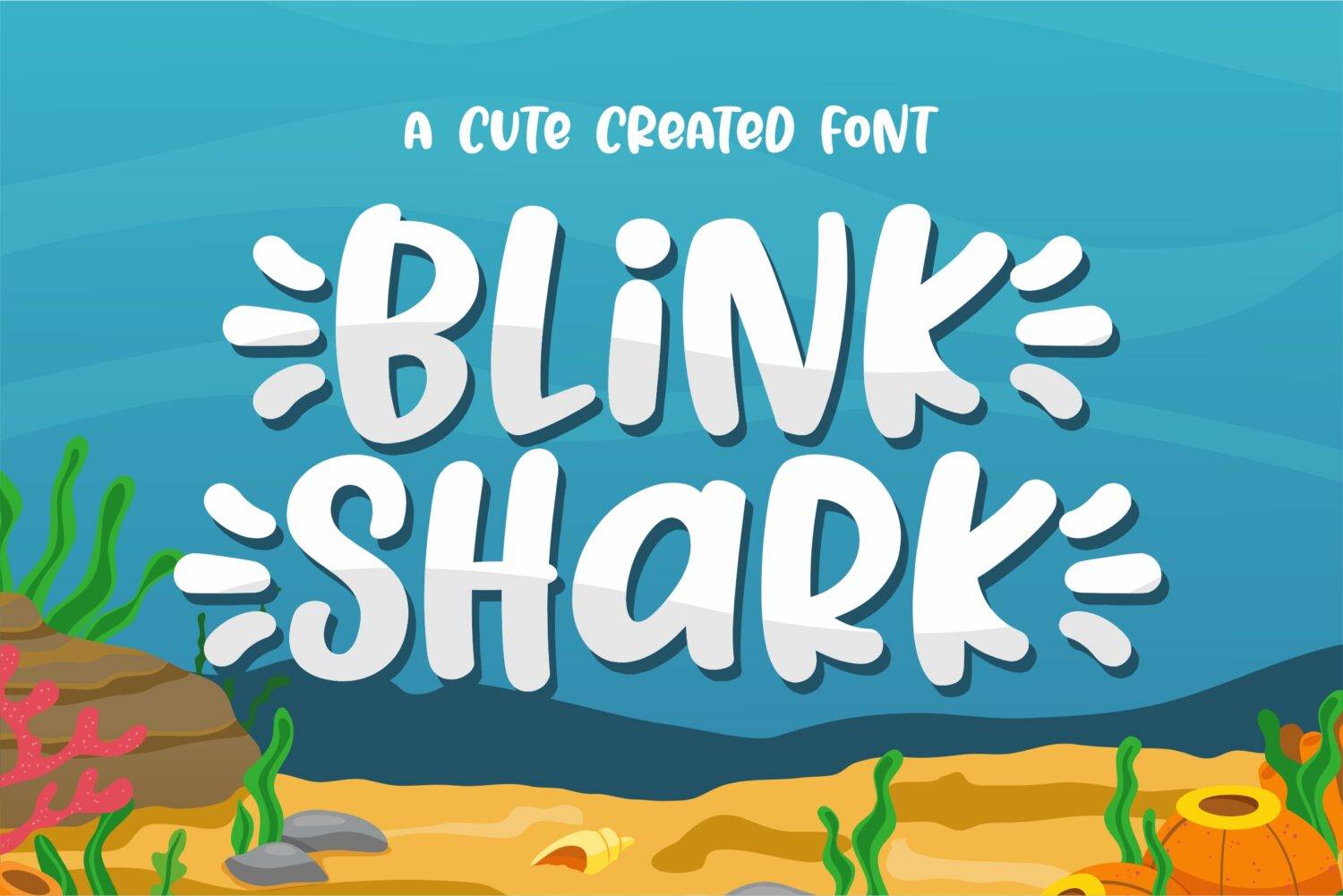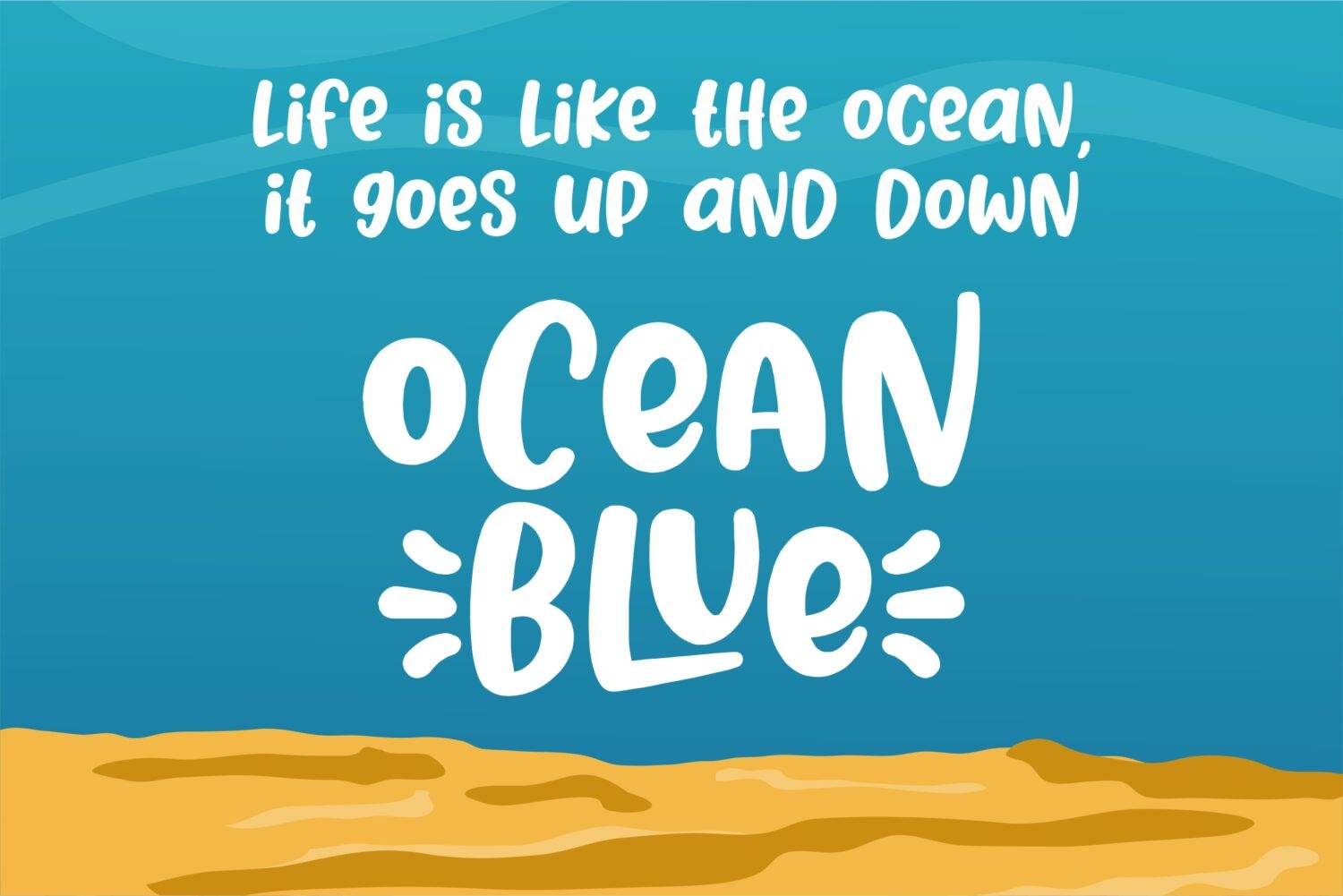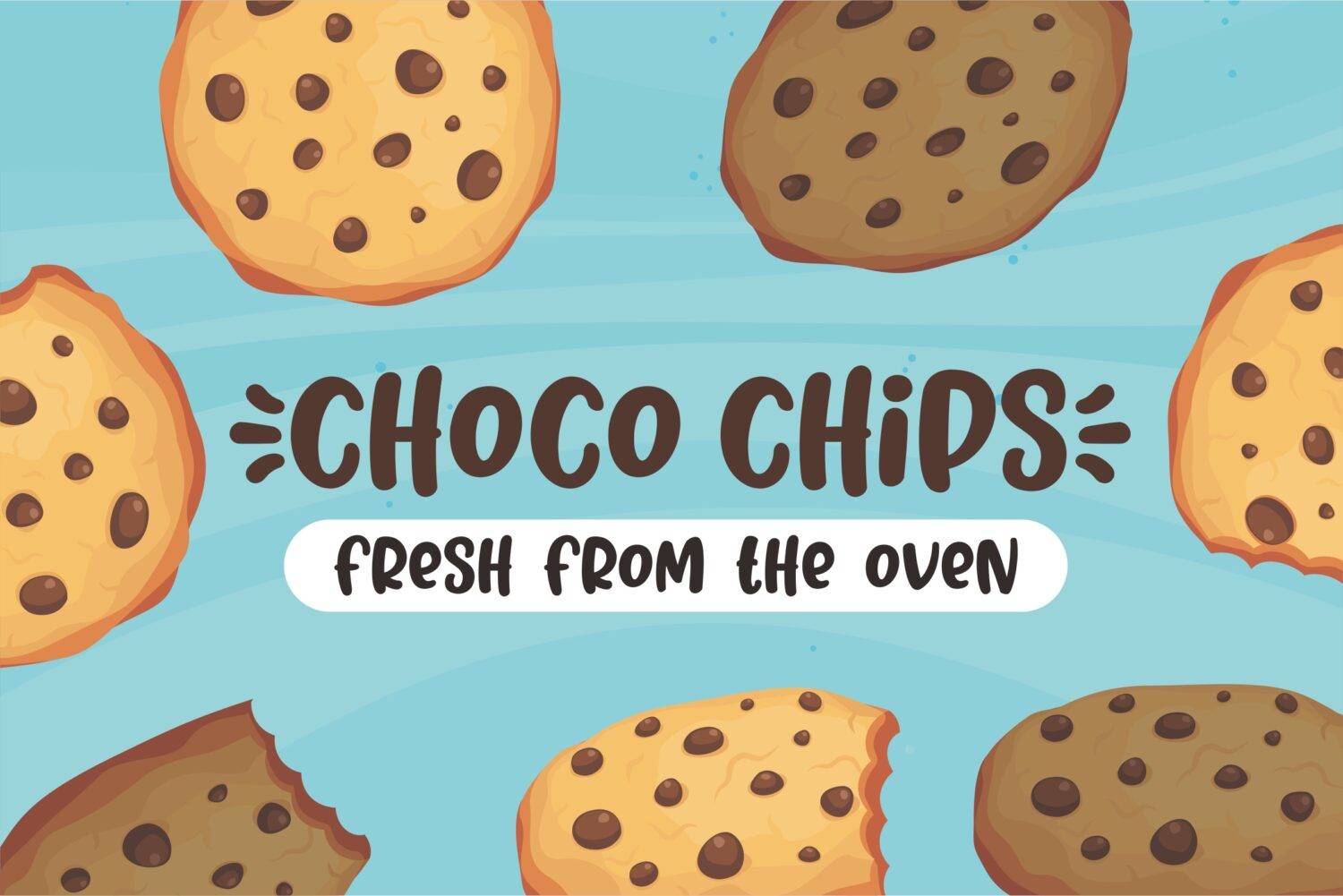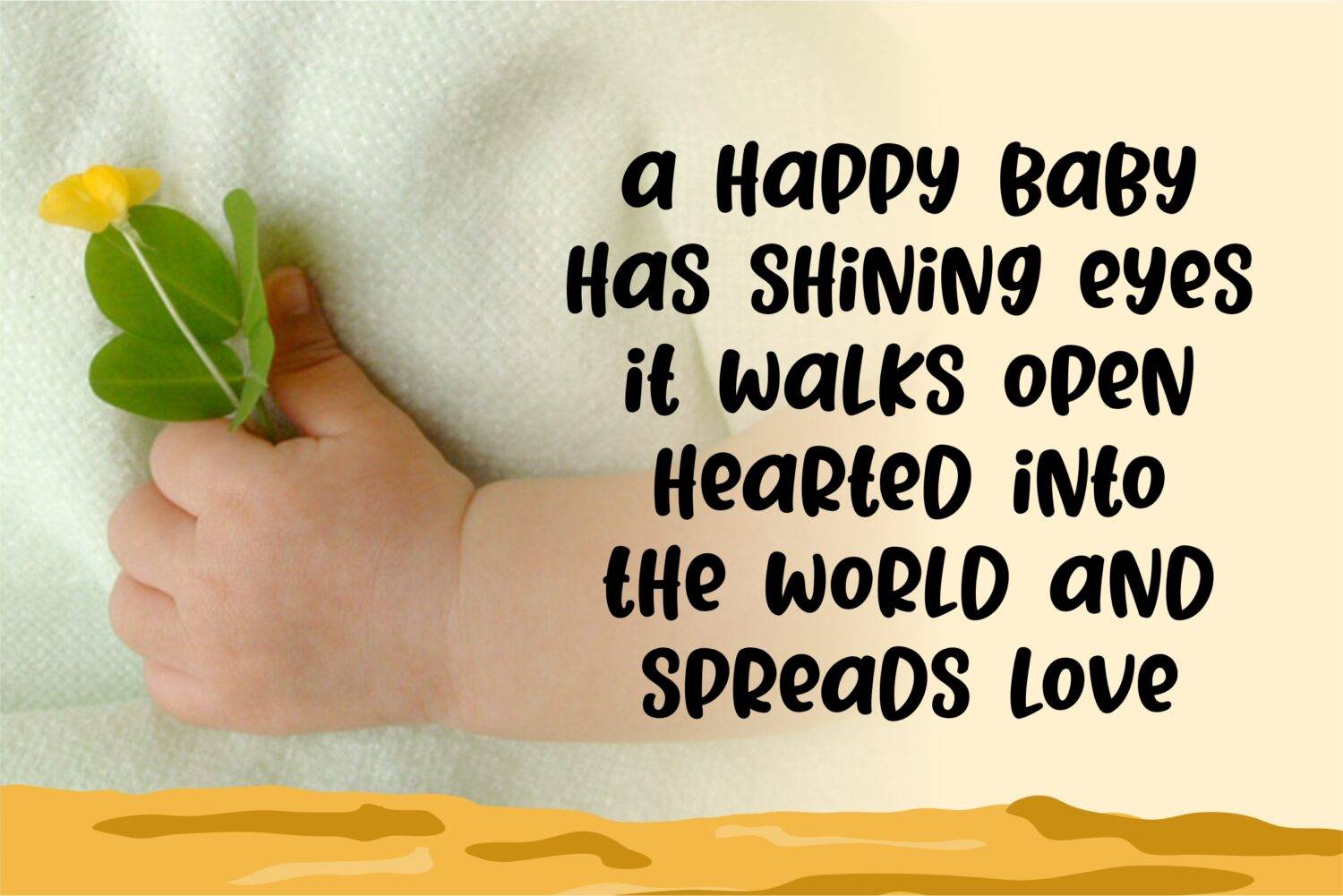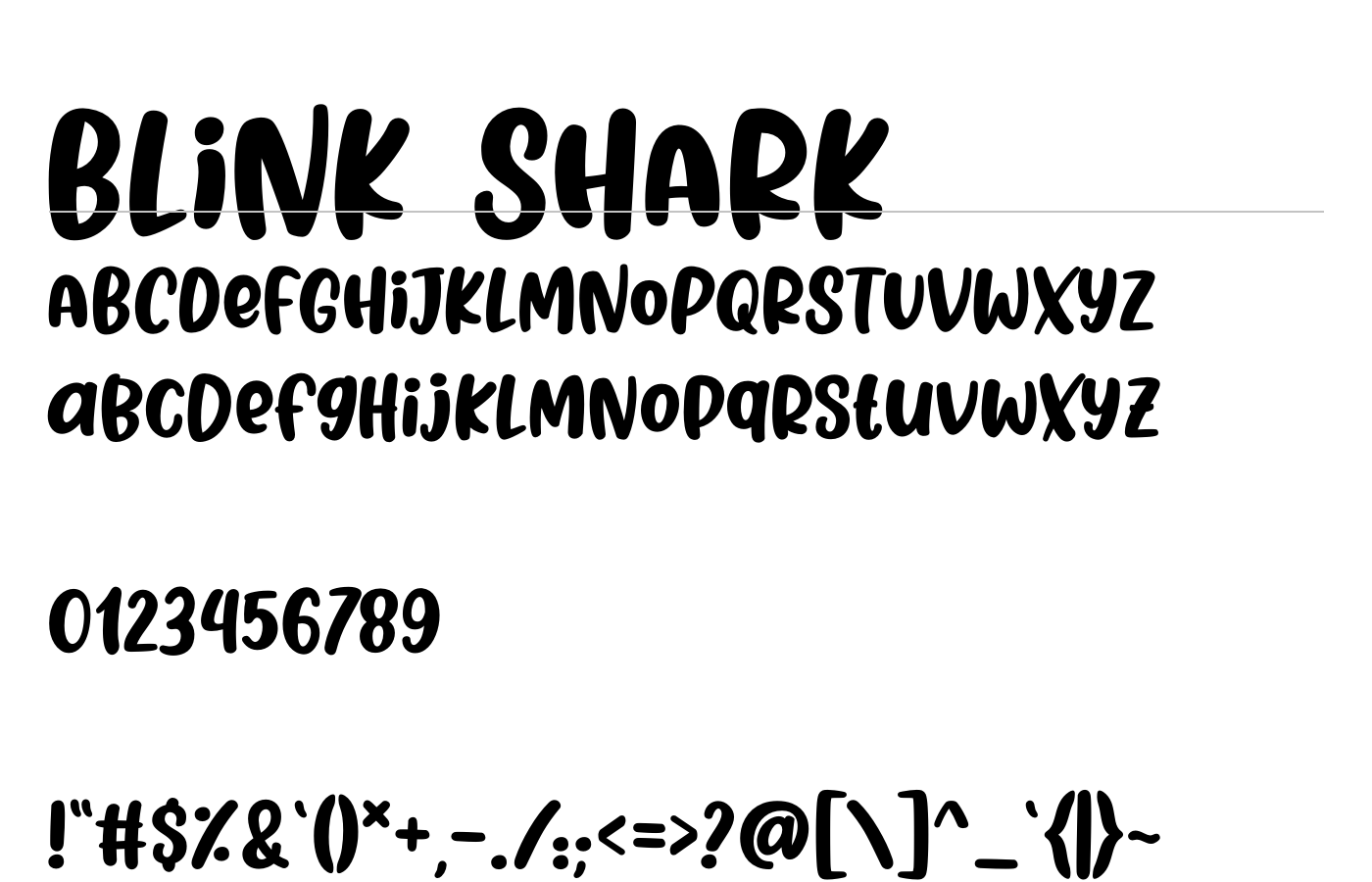
Blink Shark is a playful, bold handwritten font with rounded, friendly letterforms and a casual, approachable style. Its slightly condensed width and smooth, brush-like strokes make it perfect for fun, informal branding and creative projects that need a warm, energetic feel. This font works well for headlines, logos, posters, and packaging where a lively, youthful personality is desired.
Blink Shark Font
About Blink Shark Font
| Font family | Blink Shark Font |
| Designer | Awan Senja Team |